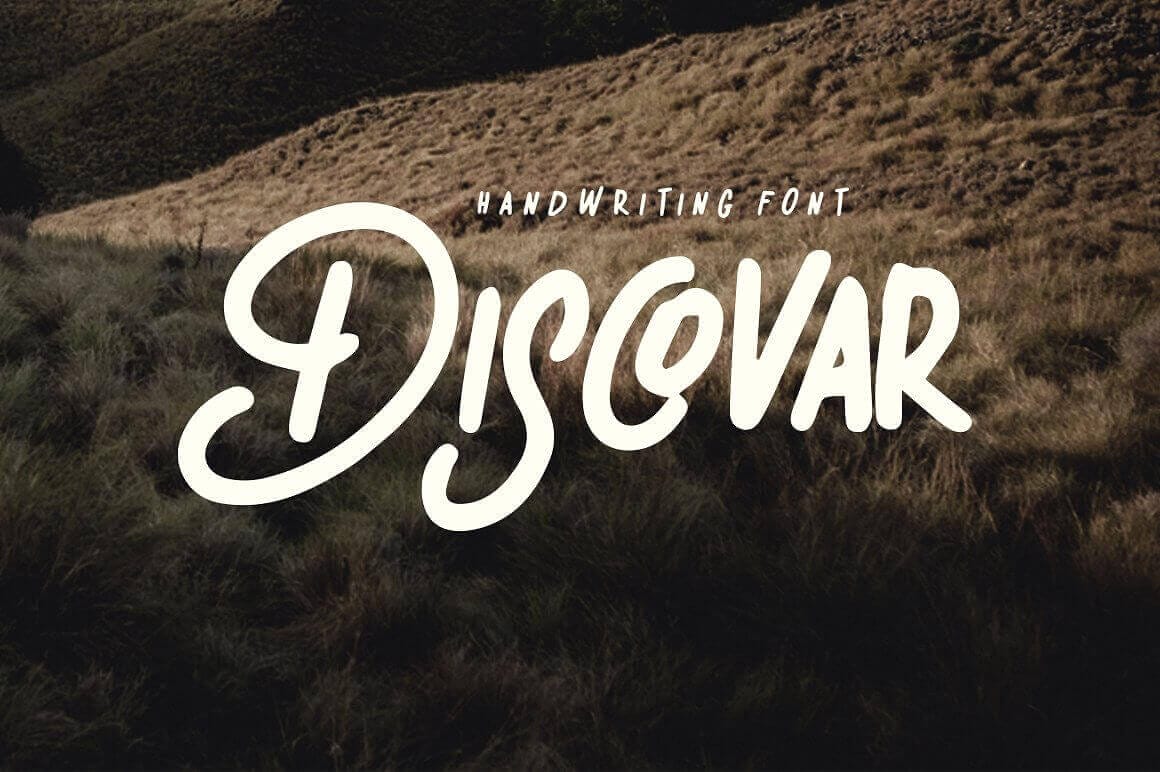
Need a clean, simple-yet-fun font? Then check out the Discovar Typeface, currently available at 50% off the regular price. Easy to read, this dancing sans serif font will help you get your message across on everything from T-shirts to mugs. Go for elegance or playfulness all with a single handwritten font.
- Clean and simple design.
- Uppercase alphabet with numbers and symbols.
- Perfect for daily quotes, T-shirts, prints, advertisements and more.